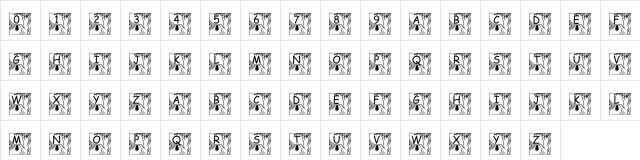
pf_holloween3 Regular
Design Context for pf_holloween3 Typeface
pf_holloween3 is a composed and adaptable typeface that performs quietly and consistently across a wide range of design contexts.